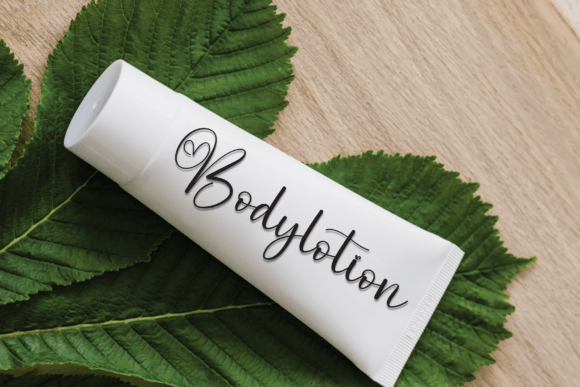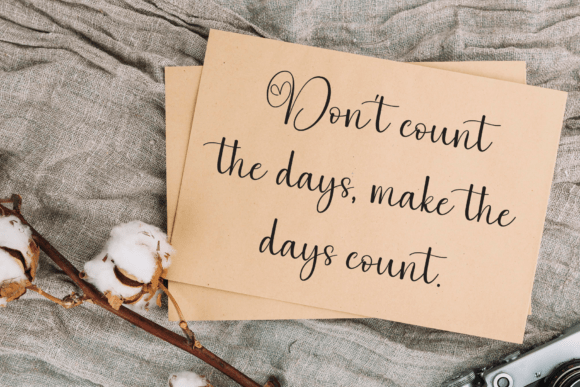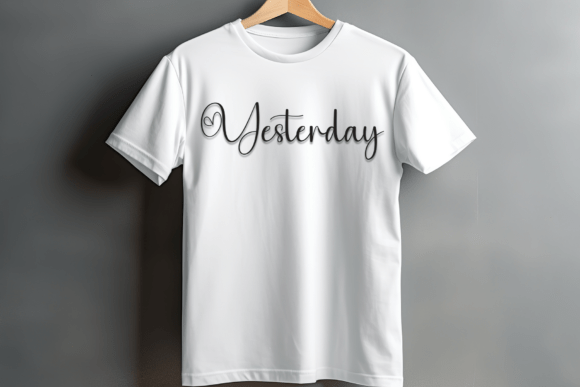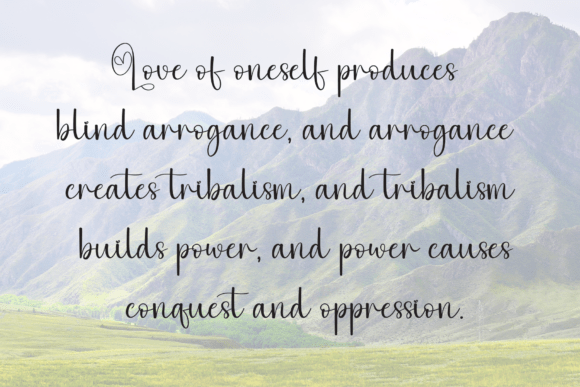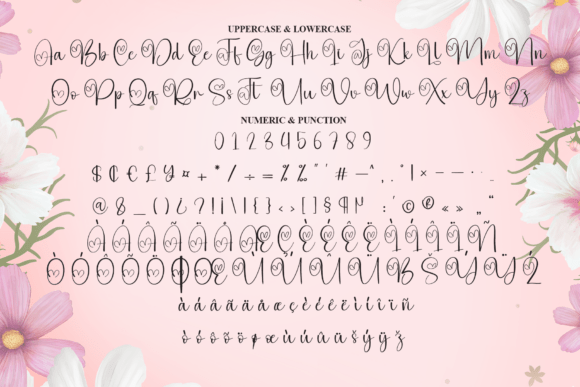
Discover the Elegance of Angela Beauty Font: A Charming Handwritten Script Font
Are you a designer, crafty DIY enthusiast, or someone who appreciates beautiful typography? Look no further than the Angela Beauty Font, a stunning handwritten script font that is sure to capture your heart. With its perfect blend of simplicity and romantic flair, this font is ideal for a wide range of creative projects, from branding and wedding stationery to beauty packaging and heartfelt quotes.
The Characteristics of Angela Beauty Font
Angela Beauty Font is a charming and elegant handwritten script font that boasts a natural flow and personal touch. Its most distinctive features are the elegant swashes and playful heart-shaped flourishes that add a touch of whimsy and romance to any text. These beautiful embellishments make every word feel warm and inviting, perfect for creating a lasting impression on your audience.
Perfect for Branding and Marketing Materials
When it comes to branding, the right font can make all the difference. Angela Beauty Font is an excellent choice for creating a unique and memorable brand identity. Its elegant and sophisticated design ensures that your brand stands out from the crowd, conveying a sense of luxury, quality, and attention to detail. Whether you’re designing a logo, business card, or website, this font is sure to elevate your brand to the next level.
Ideal for Wedding Stationery and Beauty Packaging
Angela Beauty Font is also perfect for wedding stationery, including invitations, save-the-date cards, and thank-you notes. Its romantic and whimsical design captures the magic of the special day, making every word feel like a heartfelt expression of love. Additionally, this font is well-suited for beauty packaging, such as labels, tags, and product descriptions. Its elegant and sophisticated design ensures that your products stand out on store shelves, conveying a sense of high-end quality and luxury.
Adding a Personal Touch to Heartfelt Quotes
Angela Beauty Font is not just limited to branding and marketing materials. It’s also perfect for adding a personal touch to heartfelt quotes, poems, and phrases. Whether you’re creating a custom wall art piece, greeting card, or social media post, this font is sure to convey your emotions and connect with your audience on a deeper level. The playful heart-shaped flourishes and elegant swashes add a touch of warmth and sincerity to every word, making it perfect for expressing your feelings and sentiments.
Why Choose Angela Beauty Font?
So why choose Angela Beauty Font over other script fonts? Here are just a few reasons why this font stands out:
- Unique and distinctive design: Angela Beauty Font boasts a one-of-a-kind design that is sure to capture attention and leave a lasting impression.
- Elegant and sophisticated: This font exudes elegance and sophistication, making it perfect for high-end branding, wedding stationery, and beauty packaging.
- Playful and whimsical: The playful heart-shaped flourishes and elegant swashes add a touch of whimsy and romance to every word.
- Natural flow and personal touch: This font has a natural flow and personal touch that makes every word feel warm and inviting.
In conclusion, Angela Beauty Font is a charming and elegant handwritten script font that is perfect for designers, crafty DIY enthusiasts, and anyone who appreciates beautiful typography. Its unique and distinctive design, elegant and sophisticated style, and playful and whimsical flourishes make it an excellent choice for a wide range of creative projects. Whether you’re creating branding materials, wedding stationery, beauty packaging, or heartfelt quotes, this font is sure to elevate your design to the next level.
Get Ready to Fall in Love with Angela Beauty Font